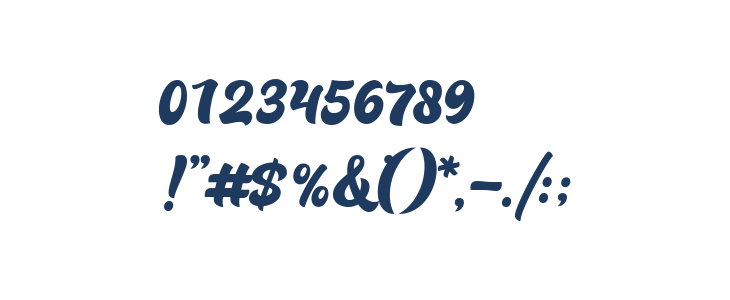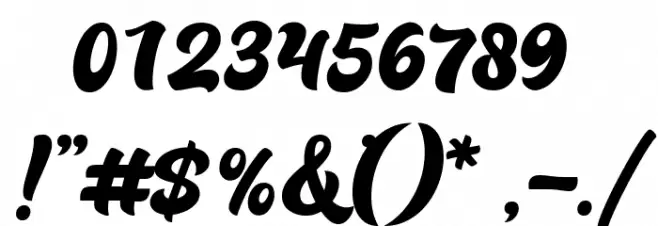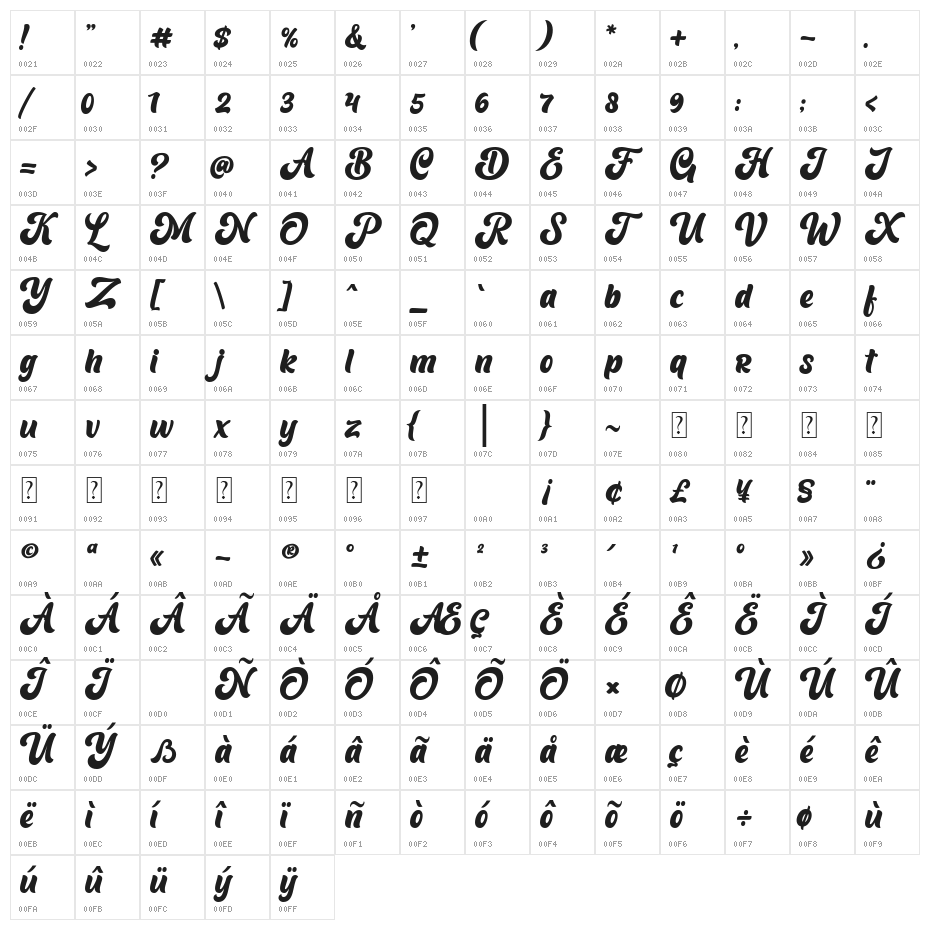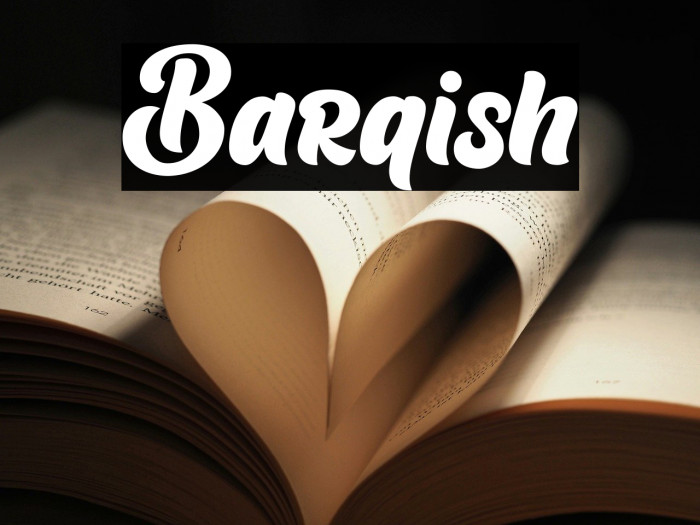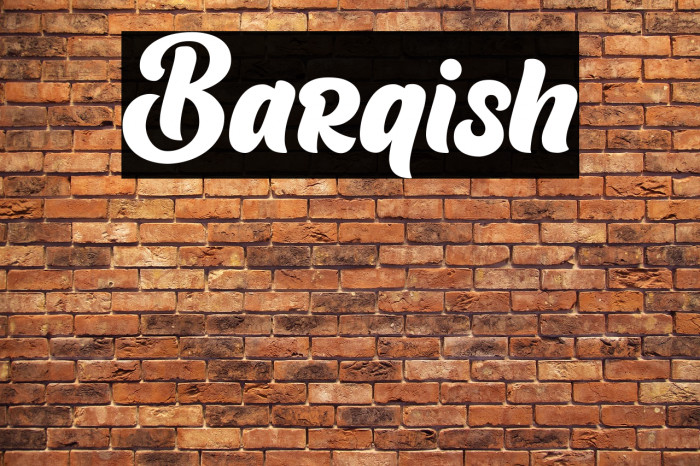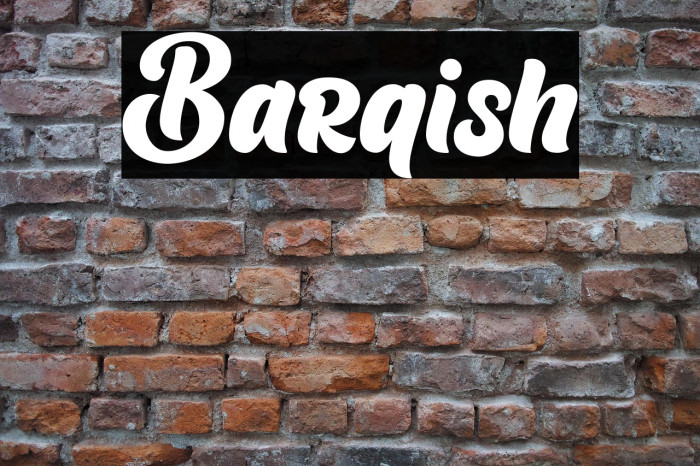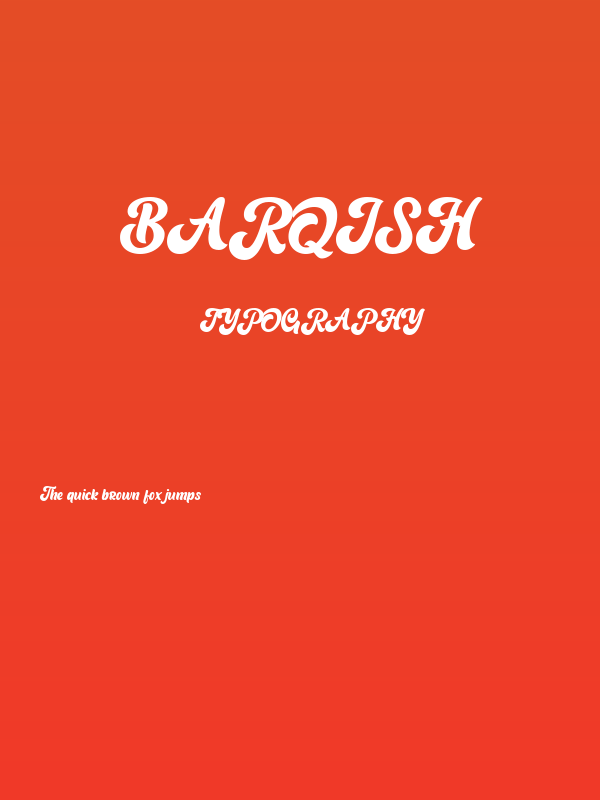
Barqish Font
Barqish Description
This font features a bold and expressive script style with a flowing, cursive design. The letters are interconnected, creating a sense of movement and elegance. The uppercase letters are ornate, with flourishes that add a decorative touch, while the lowercase letters maintain a consistent, rounded form. The numerals are bold and easily readable, matching the overall style of the alphabet. Special characters are designed with the same attention to detail, ensuring they blend seamlessly with the rest of the font. This font's thick strokes and smooth curves make it stand out, ideal for creating impactful designs.